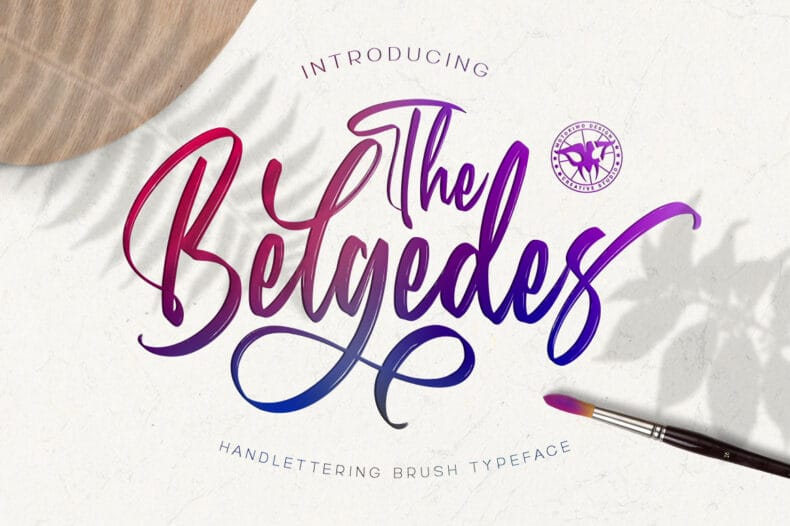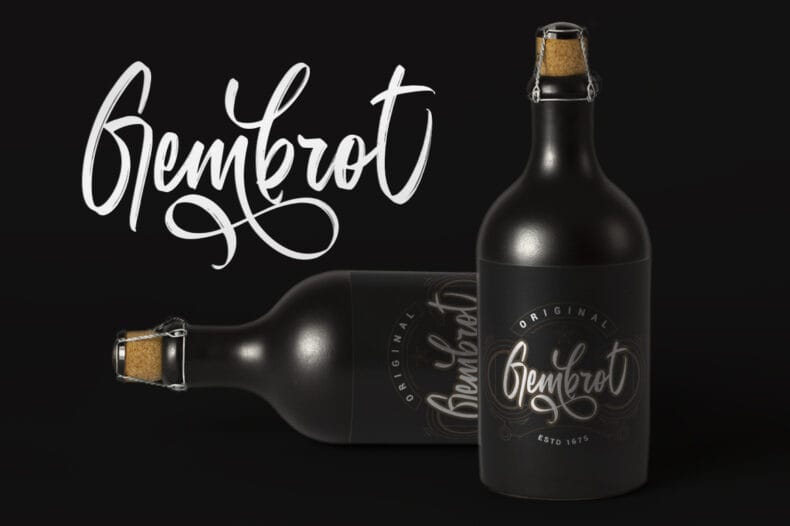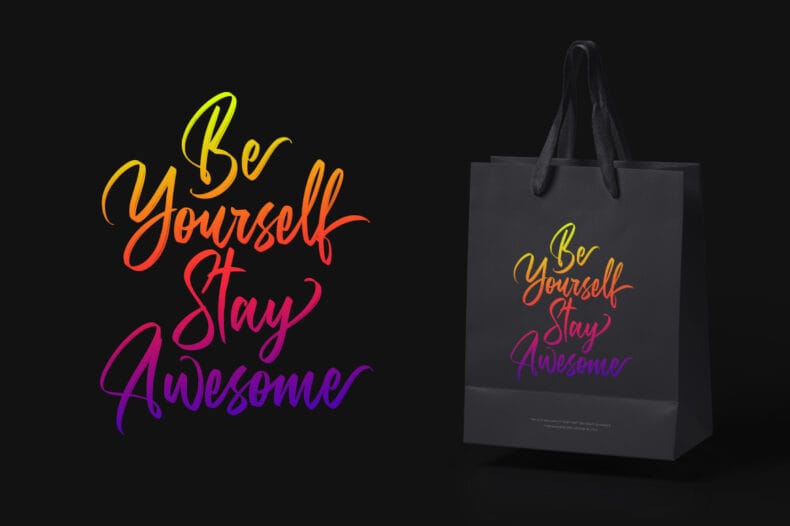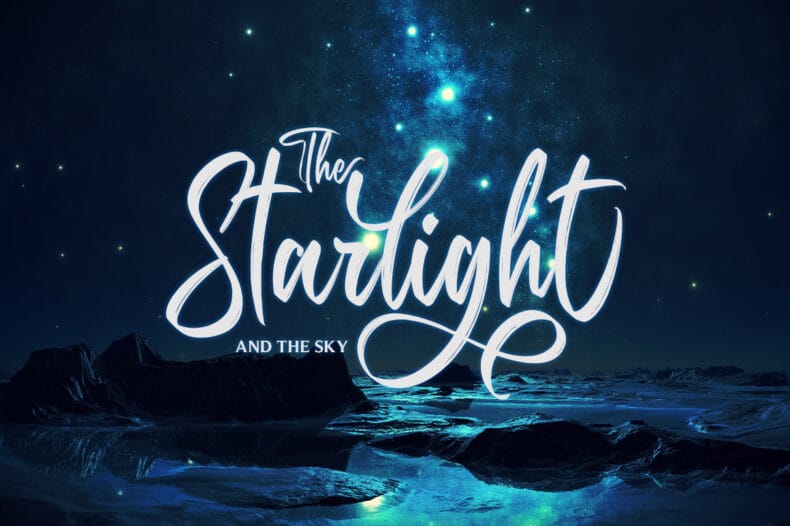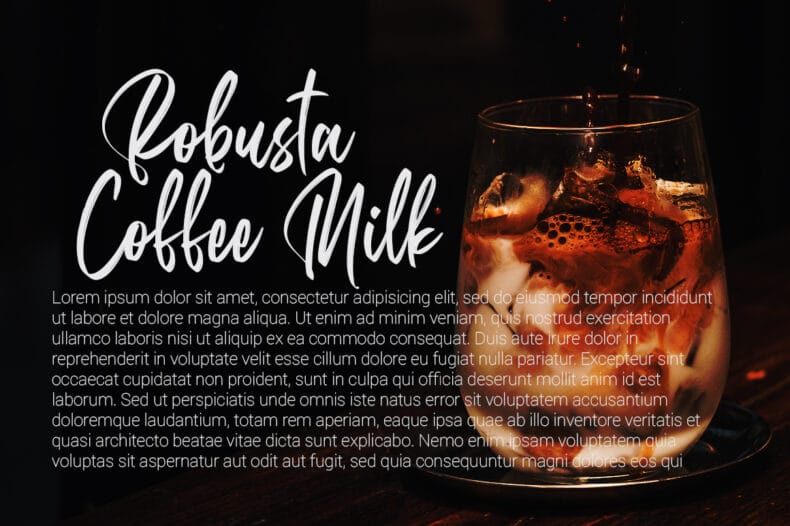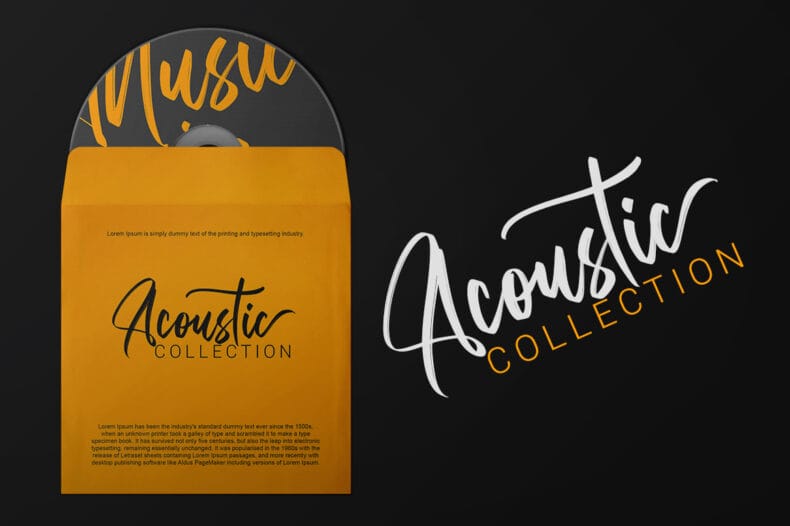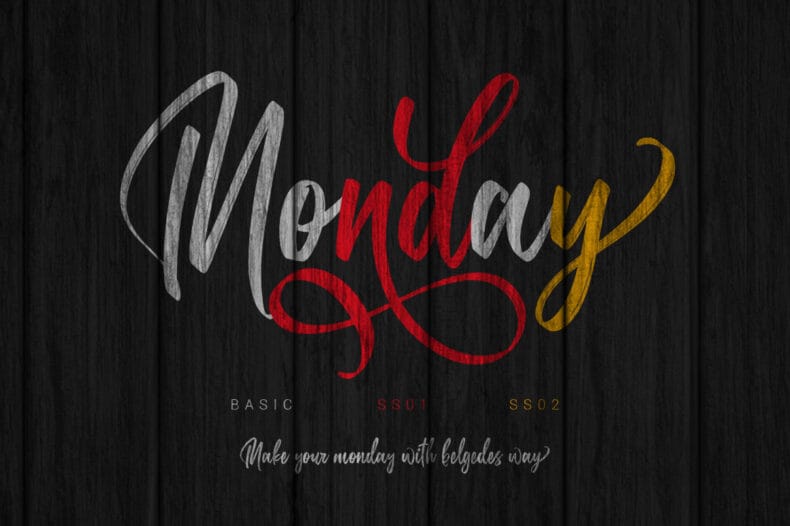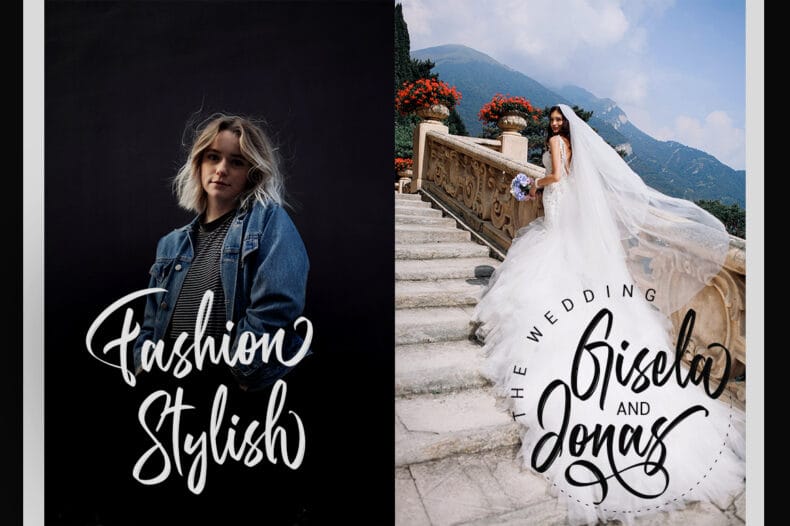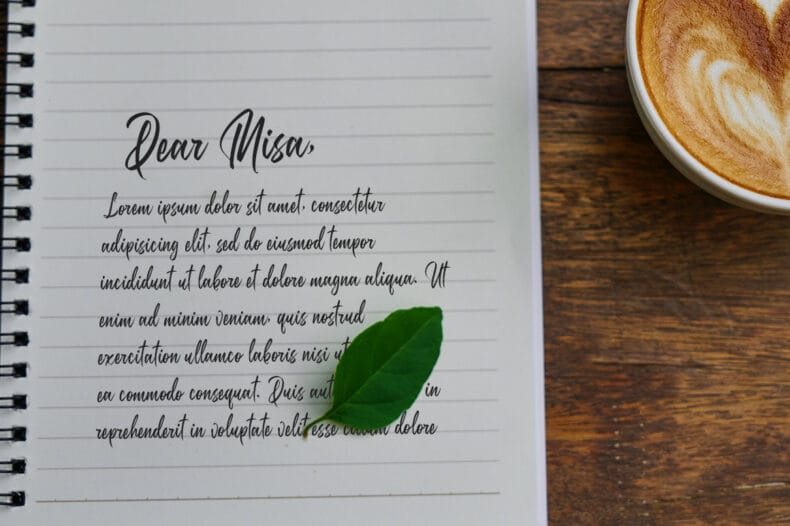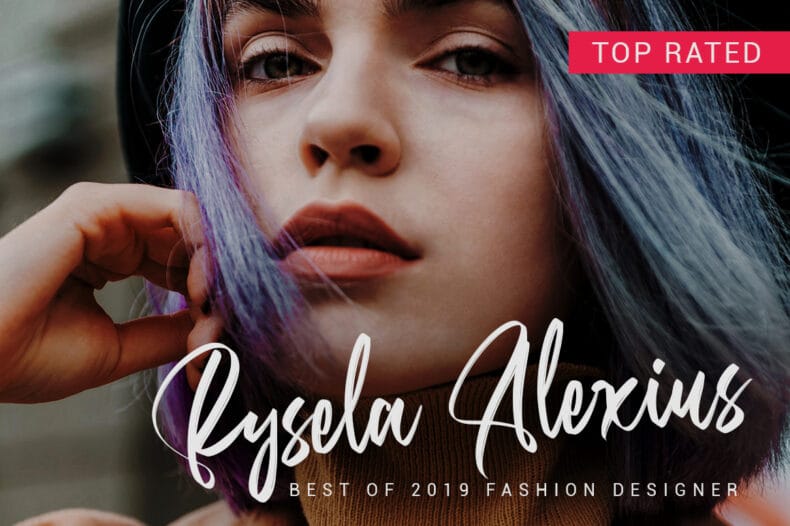
Belgedes is a brush script font with a hand-lettered character. Stylistic-set alternates and a small selection of ligatures offer ways to refine short words.
Belgedes is an option for a lettering-led logo, a poster title, or a quotation that needs a brush-written accent. Its alternate forms let you explore different versions of a word rather than relying only on the default letters.